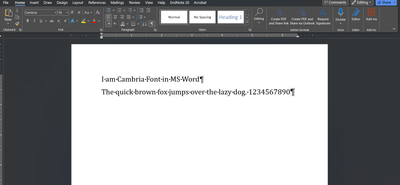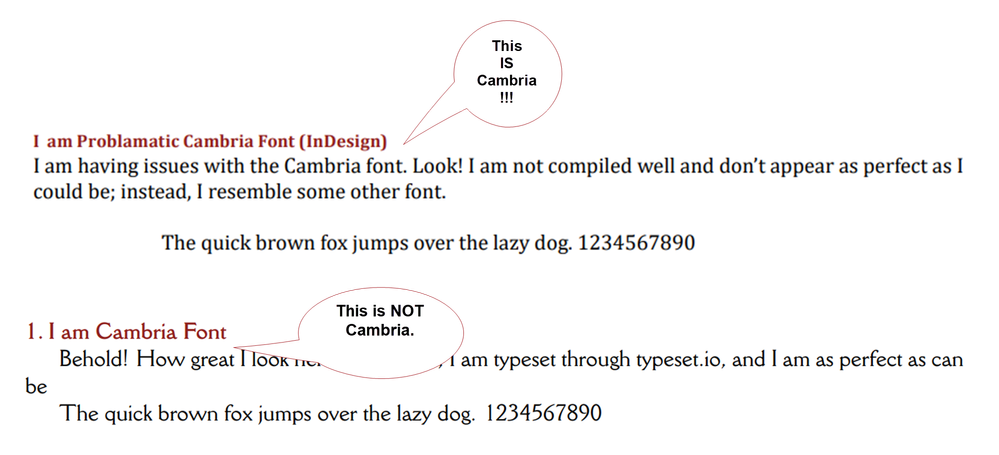
Urgent Help Needed! Cambria Font Woes in InDesign
I find myself in a font frenzy with Cambria in Adobe InDesign! :sos_button: Despite my best efforts, it's not playing nice. Any wizards out there who can sprinkle some magic advice on fixing this? 🧙‍:male_sign: Your wisdom is much needed!
In your screen capture, the top sample IS Cambria.
The bottom sample is Della Robia.
Use What The Font to verify this. https://www.myfonts.com/pages/whatthefont
Well, like Steve, I've never heard of typeset.io. Browsing it briefly, I can't imagine how you're getting from what looks like an automated PDF scraper to a font question. But: I can tell you that the glyph shapes of Cambria in your InDesign sample match what Cambria looks like on my machine, which is exactly what it's looked like since Microsoft introduced ClearType a million years ago. And when I chop out your example of what you want that font to look like and throw it into WhatTheFont, a fon
InDesign does not show any error regarding the "Cambria" Font. However, it simply does not compile it. Furthermore, When I use "Cambria" in MS Word on my same Windows PC, it still does not comply properly. InDesign and MS Word show the same result.
However, the following are the three screenshots that might describe it more clearly.
The prefect one: An out of the text from https://typeset.io/
I'm not familiar with the weblink https://typeset.io/
If it's not working in either InDesign or Word, I'd suggest it's corrupted and may need to be replaced on your sysrtem.
In your screen capture, the top sample IS Cambria.
The bottom sample is Della Robia.
Use What The Font to verify this. https://www.myfonts.com/pages/whatthefont
Well, like Steve, I've never heard of typeset.io. Browsing it briefly, I can't imagine how you're getting from what looks like an automated PDF scraper to a font question. But: I can tell you that the glyph shapes of Cambria in your InDesign sample match what Cambria looks like on my machine, which is exactly what it's looked like since Microsoft introduced ClearType a million years ago. And when I chop out your example of what you want that font to look like and throw it into WhatTheFont, a font matching service at myfonts.com, what I get back is "Della Robia Std" from Bistream
It has come to my attention that "Della Robbia" was not installed on my system. Consequently, when I converted a PDF featuring "Della Robbia" into MS Word, the font seamlessly transitioned to "Cambria," elucidating the entire narrative.